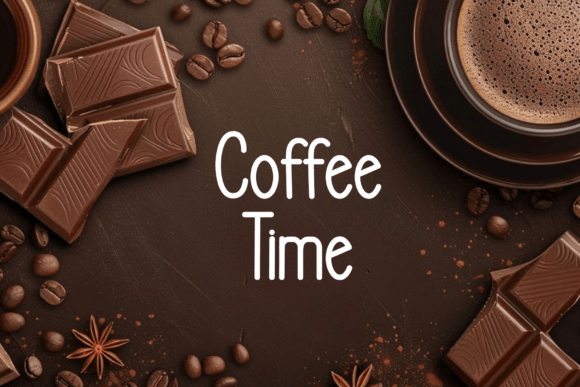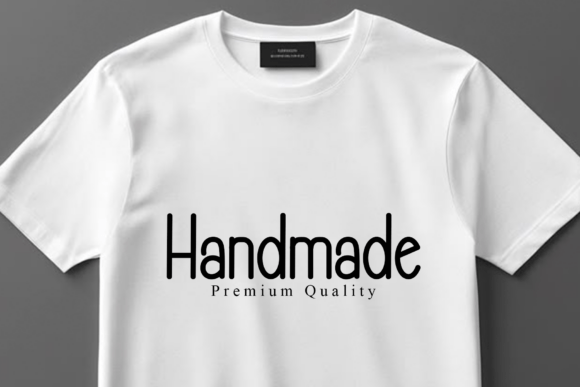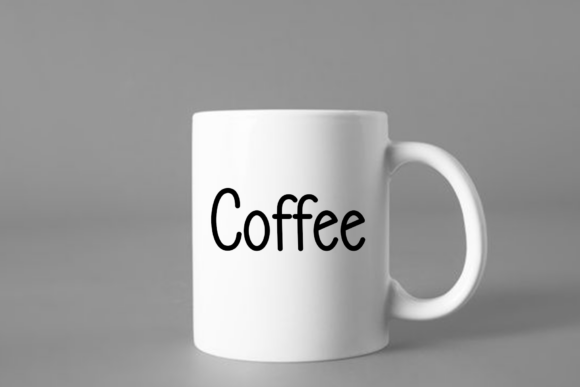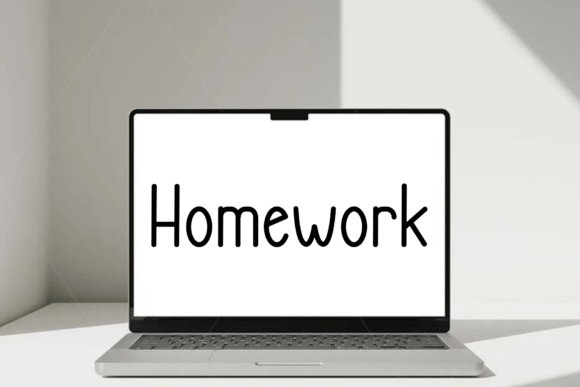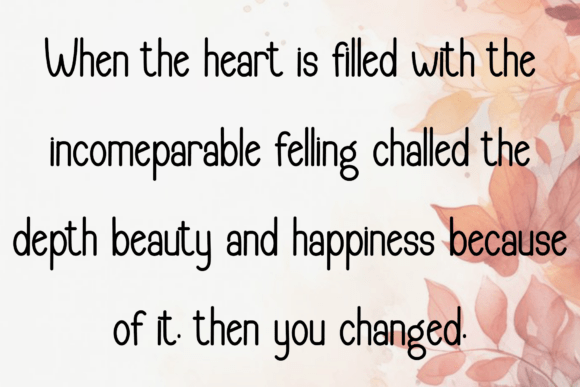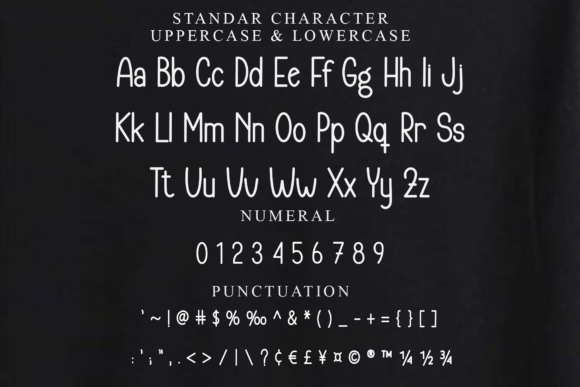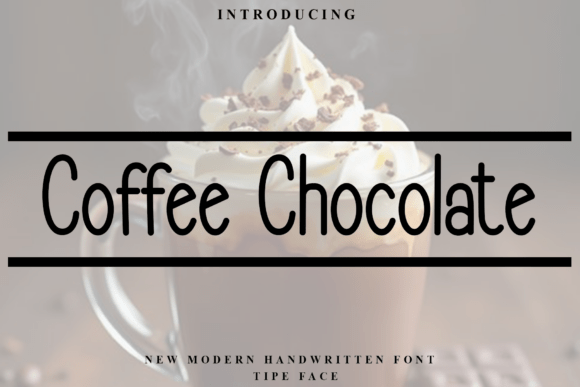
Coffee Chocolate Font: The Perfect Blend of Warmth and Creativity
Are you a designer or crafter looking for a font that exudes warmth and friendliness? Look no further than the Coffee Chocolate Font! This casual and creative font is perfect for personal projects, invitations, and social media graphics. Its round, playful strokes create a relaxed and approachable feel that’s sure to capture the attention of your audience.
The Charm of Coffee Chocolate Font
Coffee Chocolate Font boasts a charming, hand-drawn aesthetic that adds a fun and unique touch to any design. Its playful strokes and rounded edges create a sense of warmth and approachability, making it perfect for designs that require a personal touch. Whether you’re creating a birthday invitation, a social media graphic, or a personal blog, Coffee Chocolate Font is sure to bring a smile to your audience’s faces.
Key Features of Coffee Chocolate Font
- Hand-Drawn Aesthetic: The font’s hand-drawn aesthetic gives it a unique and playful touch that’s perfect for designs that require a personal touch.
- Round and Playful Strokes: The font’s round and playful strokes create a relaxed and approachable feel that’s perfect for personal projects and social media graphics.
Coffee Chocolate Font is perfect for designers and crafters who want to add a personal touch to their designs. Its unique and playful aesthetic makes it ideal for a variety of projects, including:
- Personal invitations and greeting cards
- Branding and packaging designs
- DIY projects and crafts
Tips for Using Coffee Chocolate Font
Here are some tips for using Coffee Chocolate Font in your designs:
- Pair it with Other Fonts: Coffee Chocolate Font pairs well with other fonts, especially those with a clean and modern aesthetic. Try pairing it with a sans-serif font for a contrasting look.
- Use it for Headings: Coffee Chocolate Font is perfect for headings and titles. Use it to add a playful touch to your designs.
- Experiment with Colors: Coffee Chocolate Font looks great in a variety of colors. Experiment with different colors to find the perfect combination for your design.
Coffee Chocolate Font is a unique and creative font that’s perfect for designers and crafters who want to add a personal touch to their designs. Its charming, hand-drawn aesthetic and playful strokes create a relaxed and approachable feel that’s sure to capture the attention of your audience. With its PUA Encoded glyphs and multi-platform compatibility, Coffee Chocolate Font is easy to use across different platforms. So why not give it a try and see how it can elevate your designs?
Coffee Chocolate Font is a versatile and creative font that’s sure to become a staple in your design toolkit. Its unique aesthetic and playful strokes make it perfect for a variety of projects, from personal invitations to social media graphics. So why not give it a try and see how it can add a touch of warmth and friendliness to your designs?